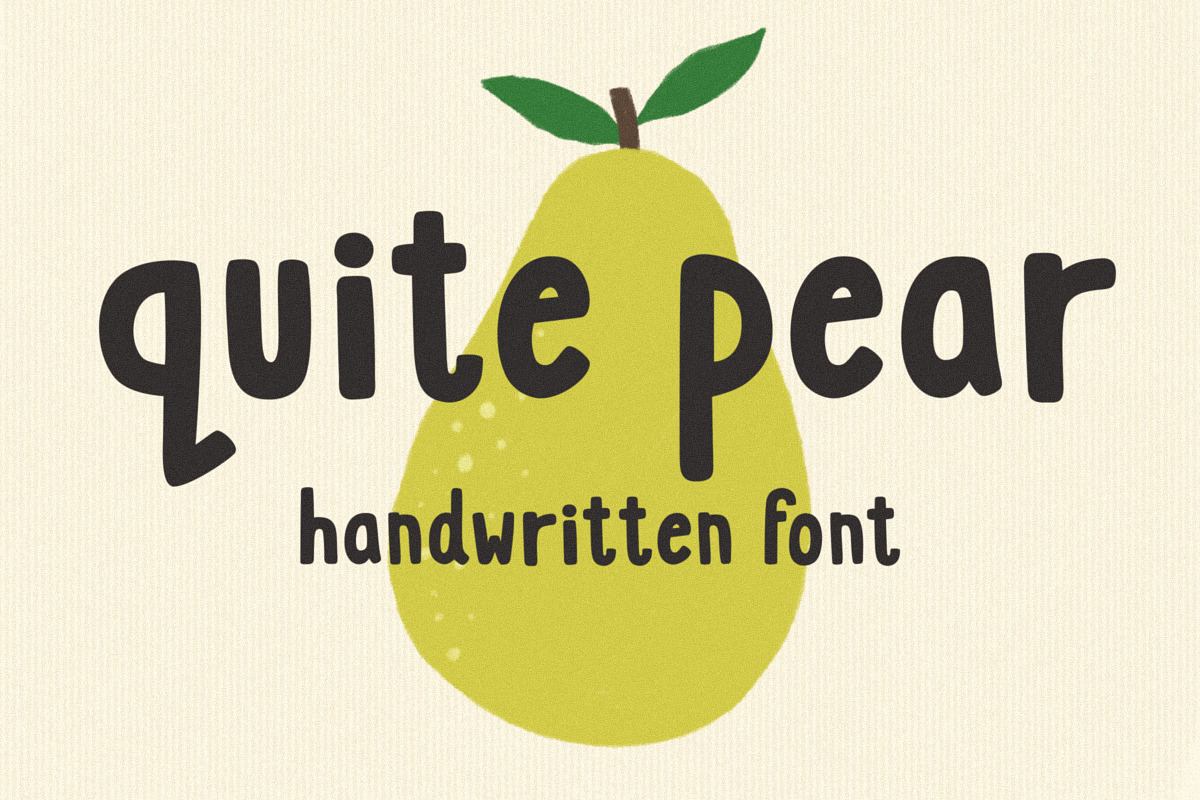
Quite Pear – A Fun Handwritten Font Free Download is a playful and cheerful typeface that brings a lighthearted, hand-drawn vibe to your designs. With its bouncy baseline, quirky letterforms, and casual charm, this font is perfect for kids' projects, greeting cards, DIY crafts, product packaging, and colorful social media graphics.
Designed to feel personal and friendly, Quite Pear – A Fun Handwritten Font Free Download adds warmth and personality wherever it’s used. Whether you're working on school-themed designs or creating branding for a fun, approachable product, this font delivers a joyful and inviting tone.